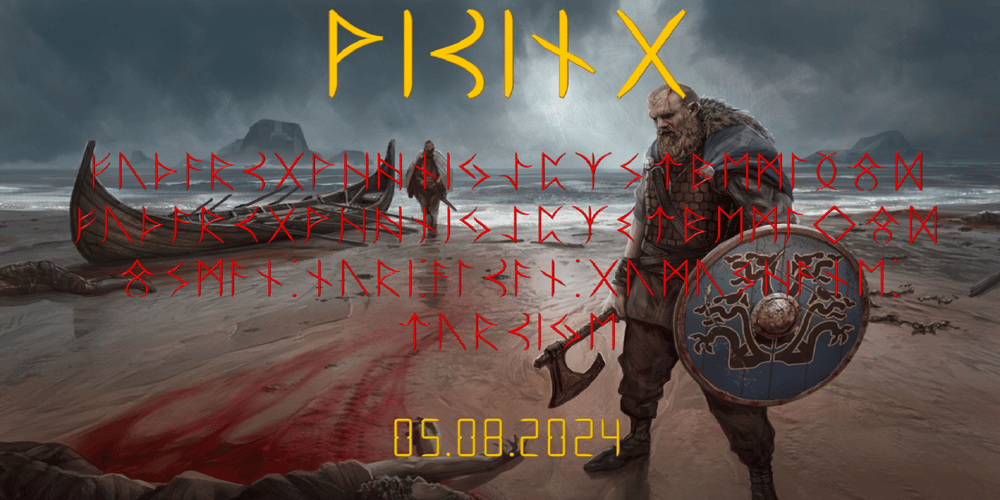
Ongunkan E. Futhark Karabalgasun
Ongunkan E. Futhark Karabalgasun font
Ongunkan E. Futhark Karabalgasun Font Family was designed by Osman Nuri ALKAN and published by Runic World Tamgacı. Ongunkan E. Futhark Karabalgasun contains 1 styles and family package options. I created a beautiful font by adapting the typography used in the Karabalgasun inscription in ancient Turkish monuments for Elder Futhark.